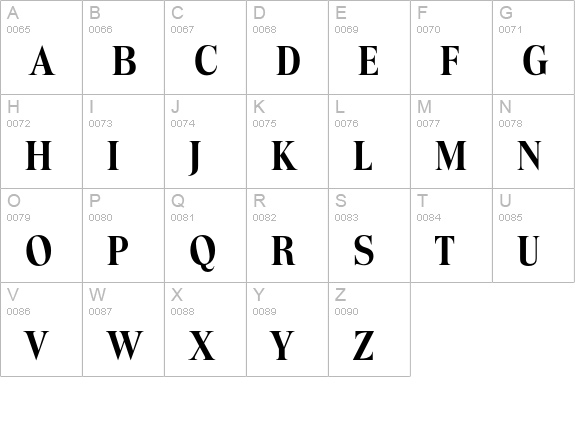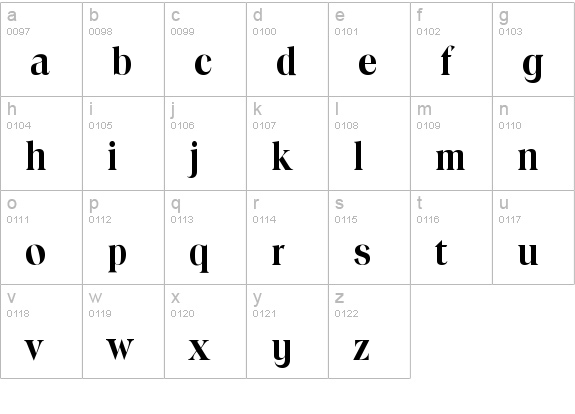
Toledo-DemiBold is a sub-bold, structured variant in the Toledo typeface family \xE2\x80\x94 well suited to sub-headlines and emphasised passages.
Toledo-DemiBold font is a stunning typeface that exudes confidence and elegance. Its bold and commanding presence makes it perfect for headlines, titles, and branding projects that need to make a strong impact. With its sleek and modern design, Toledo-DemiBold captures attention and adds a touch of sophistication to any design. What makes Toledo-DemiBold even more remarkable is that it is freely available to download at FontsMarket.com. This means that designers, creatives, and enthusiasts alike can easily access this exceptional font without any cost. Whether you're working on a personal project or a professional endeavor, Toledo-DemiBold offers a high-quality and versatile solution that can elevate your designs to new heights. The carefully crafted letterforms of Toledo-DemiBold showcase its attention to detail and commitment to excellence. Each character is flawlessly balanced, ensuring legibility and readability across various mediums. Whether it's on a website, in print, or displayed on a billboard, Toledo-DemiBold delivers a visually striking and impactful message every time. With its generous x-height and sturdy strokes, Toledo-DemiBold brings a sense of stability and authority to your designs. Its bold and confident nature allows it to stand out in a crowd and leave a lasting impression on the viewer. Whether you're creating a logo, a poster, or a magazine cover, Toledo-DemiBold is the perfect choice to convey your message with power and style. Available in a wide range of weights and styles, Toledo-DemiBold offers endless possibilities for your design projects. Its versatility allows it to seamlessly adapt to various themes and aesthetics, making it a go-to choice for designers looking for a reliable and visually striking font. Toledo-DemiBold is a masterpiece that combines elegance, strength, and versatility. And the best part is that it is freely available to download at FontsMarket.com. Don't miss out on this incredible opportunity to enhance your designs with a font that exudes confidence and sophistication. Download Toledo-DemiBold today and unlock its full potential for your creative projects.